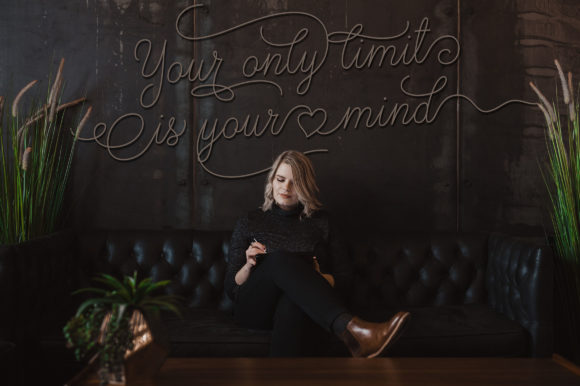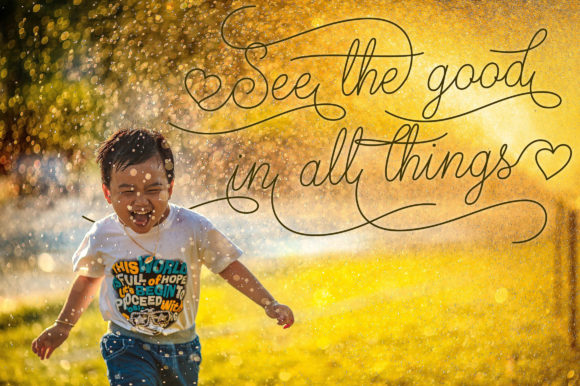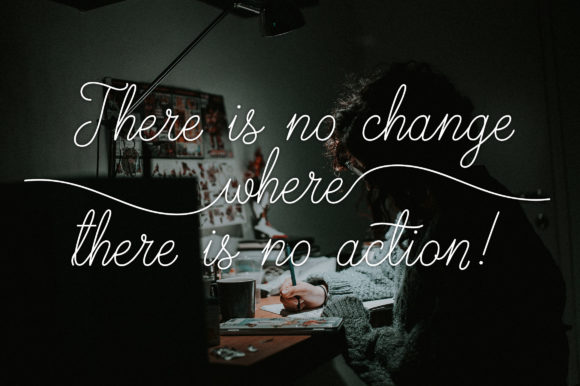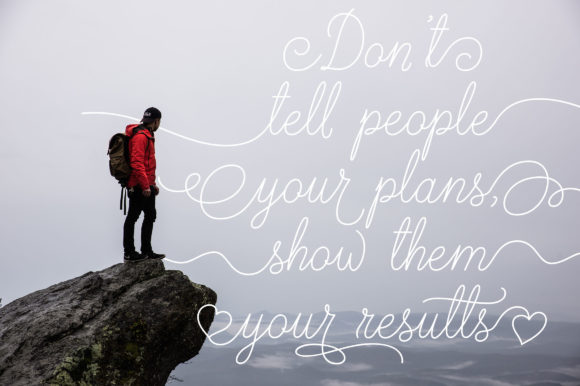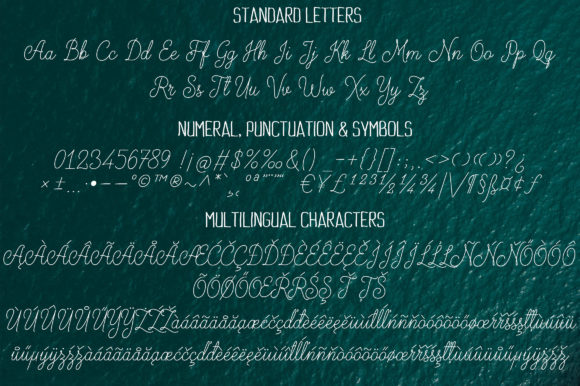
Introducing Artemia Font: A Magical Script Font for Elegant Designs
Are you a designer or crafter looking for a font that exudes timeless elegance and authentic calligraphy? Look no further than Artemia Font, a beautifully crafted script font that combines classic style with a friendly feel. In this article, we’ll dive into the features and benefits of Artemia Font, and explore how it can elevate your designs to the next level.
The Perfect Blend of Elegance and Friendliness
Artemia Font is a magical script font that boasts an incredibly classic style, reminiscent of traditional calligraphy. Yet, despite its elegant appearance, it still manages to convey a friendly and approachable feel. This makes it an ideal font for designers who want to create original and outstanding designs that resonate with their audience.
PUA Encoded for Easy Access to Glyphs and Swashes
One of the standout features of Artemia Font is its PUA (Private Use Area) encoding. This means that you can easily access all the cute glyphs and swashes with ease, giving you a wealth of creative possibilities. With PUA encoding, you can unlock the full potential of Artemia Font and add a touch of personality to your designs.
Special Features for Added Creativity
Artemia Font is more than just a beautiful script font – it also features a range of special features that can enhance your designs. These include:
- Alternate glyphs: Add some extra flair to your text with alternative glyphs that offer a range of creative options.
- Ligatures: Create beautiful connections between letters with ligatures that add a touch of elegance to your text.
Why Choose Artemia Font?
So why should you choose Artemia Font for your design projects? Here are just a few compelling reasons:
- Timeless elegance: Artemia Font boasts a classic style that will never go out of fashion.
- Authentic calligraphy: With its authentic calligraphy feel, Artemia Font adds a touch of sophistication to any design.
- Easy to use: Thanks to its PUA encoding, Artemia Font is easy to use and offers a range of creative possibilities.
- Flexible: Whether you’re designing a logo, creating a social media graphic, or crafting a beautiful wedding invitation, Artemia Font is the perfect choice.
Using Artemia Font in Your Design Projects
So how can you use Artemia Font in your design projects? Here are a few ideas to get you started:
- Logos and branding: Use Artemia Font to create a beautiful and elegant logo that reflects your brand’s personality.
- Social media graphics: Add a touch of sophistication to your social media graphics with Artemia Font.
- Wedding invitations: Create beautiful and elegant wedding invitations with Artemia Font.
- Stationery: Use Artemia Font to create stunning stationery that showcases your brand’s personality.
In conclusion, Artemia Font is a magical script font that offers a perfect blend of timeless elegance and authentic calligraphy. With its PUA encoding, special features, and ease of use, it’s the perfect choice for designers and crafters looking to create original and outstanding designs. Whether you’re designing a logo, creating a social media graphic, or crafting a beautiful wedding invitation, Artemia Font is the perfect font for your design projects.